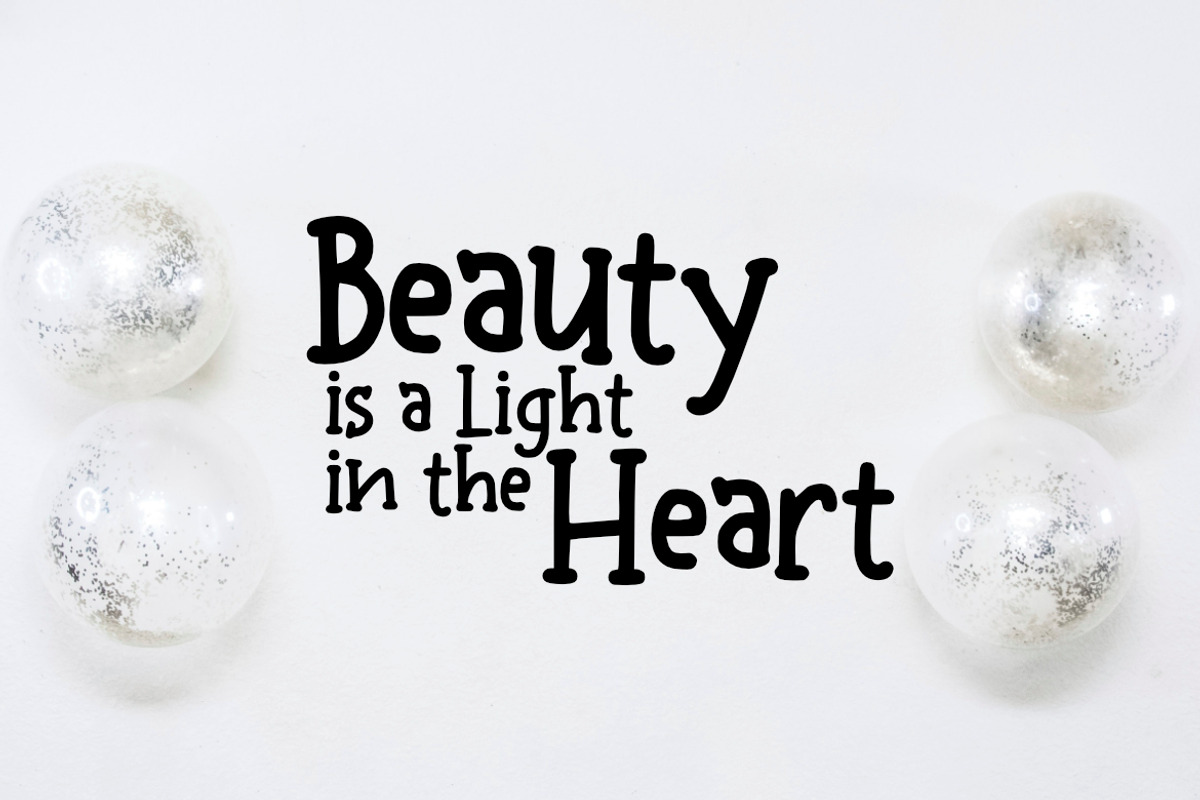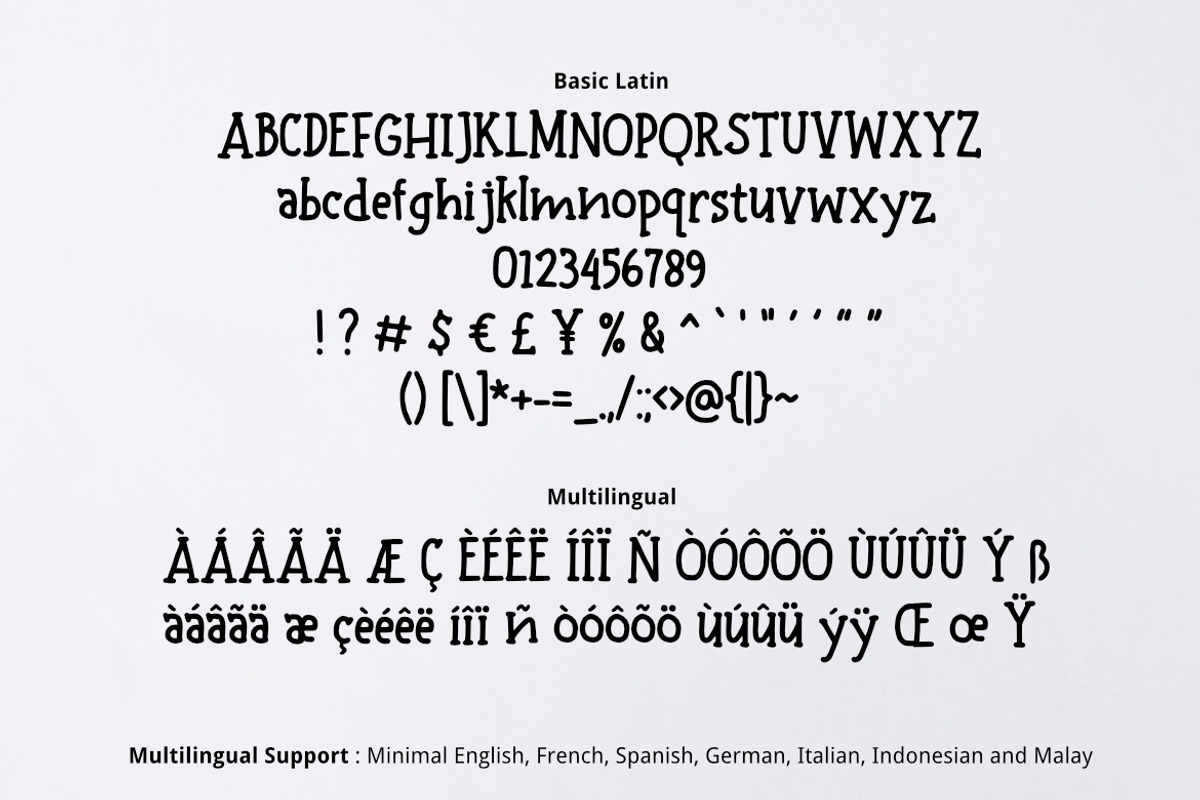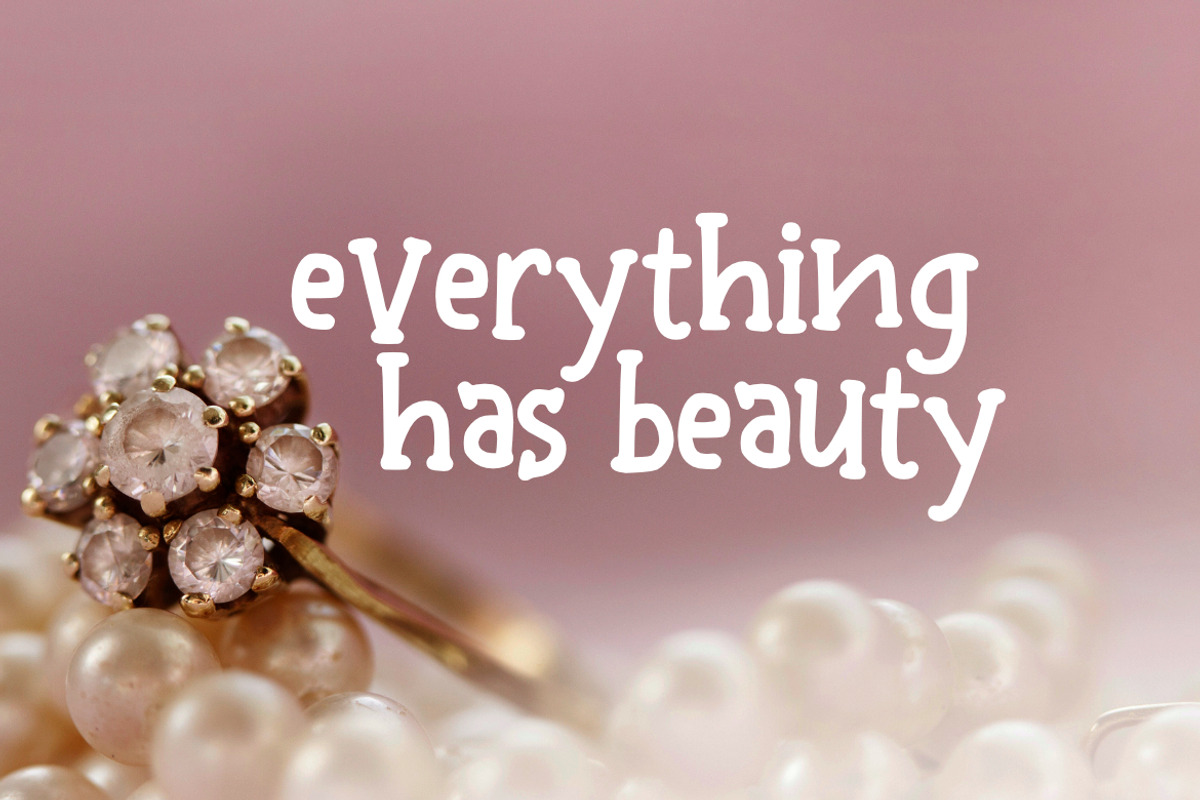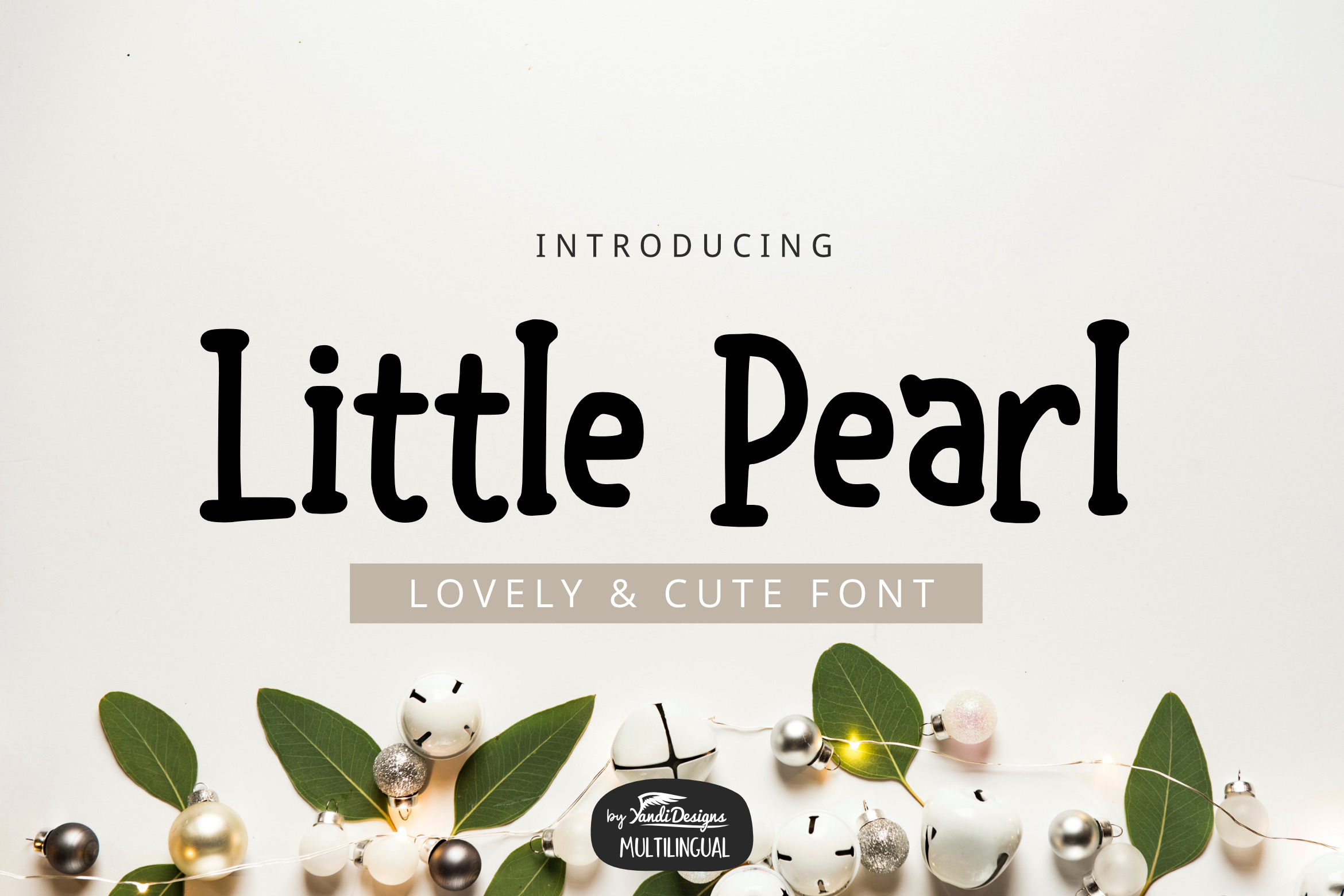
Little Pearl Font
Little Pearl Font is lovely cute multipurpose handmade font, suitable for many project children book, quotes, logo , heading , title etc.
Basic Latin (Standard English character , number, symbol) Multilingual Support (minimal English, French, Spanish, German, Italian, Indonesian, Malay)